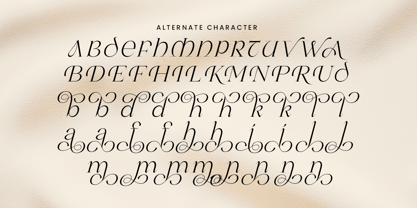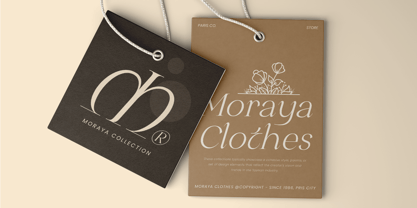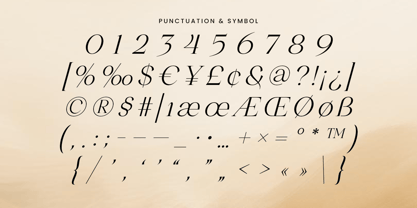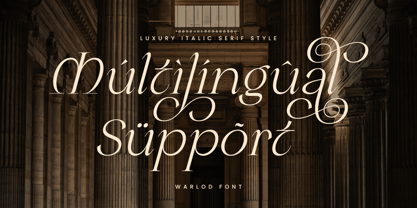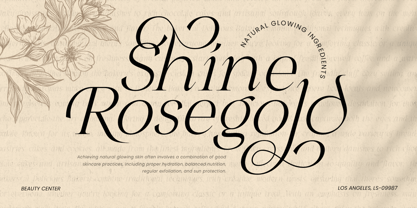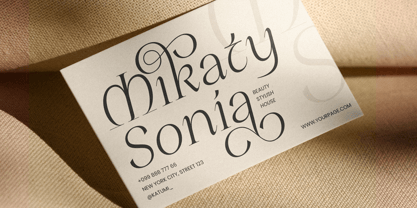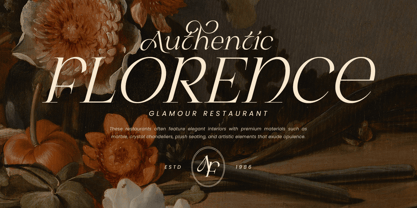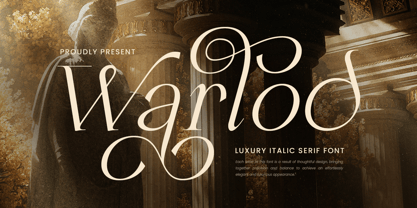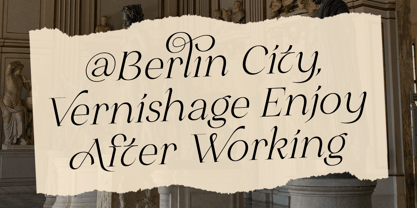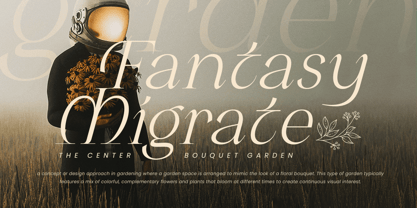
Warlod
La familia tipográfica Warlod fue diseñada por Zamroni Hamzah y publicada por Sensatype Studio. Warlod contiene 1 estilos. Más información sobre esta familia
Elegance in Motion
Warlod is a luxury italic serif font designed to convey a sense of grace and dynamism. With its sweeping curves and refined structure, it offers a timeless appeal that elevates any design.
Perfect for Premium Designs
This font is ideal for branding, invitations, magazine covers, and high-end product packaging, delivering an unmistakable touch of sophistication to every project.
Sophisticated and Versatile
Warlod balances traditional serif aesthetics with modern italic flair, making it a versatile choice for creating distinctive and memorable designs.
Warlod - Luxury Italic Serif Font Features:
• Alternates Characters Ready
• Punctuation, Number, and Symbol
• Uppercase and Lowercase
• Opentype Features
Multilingual Characters available for:
Afrikaans, Albanian, Asu, Basque, Bemba, Bena, Breton, Chiga, Cornish, Dutch, English, Estonian, Filipino, Finnish, Friulian, Galician, German, Gusii, Indonesian, Irish, Italian, Kabuverdianu, Kalenjin, Kinyarwanda, Luo, Luxembourgish, Luyia, Machame, Makhuwa-Meetto, Makonde, Malagasy, Manx, Morisyen, North Ndebele, Nyankole, Oromo, Portuguese, Quechua, Romansh, Rombo, Rundi, Rwa, Samburu, Sango, Sangu, Scottish Gaelic, Sena, Shambala, Shona, Soga, Somali, Spanish, Swahili, Swedish, Swiss.